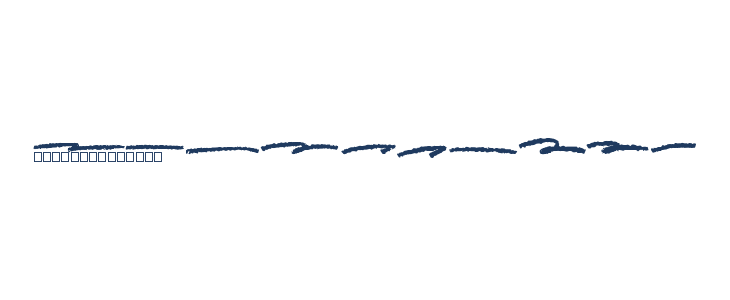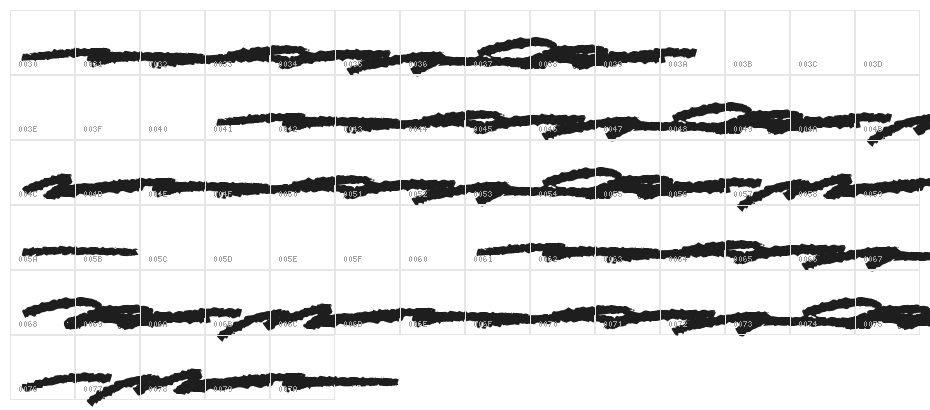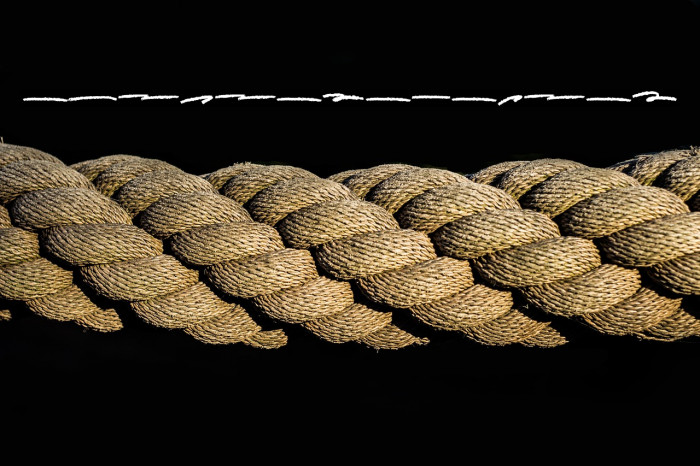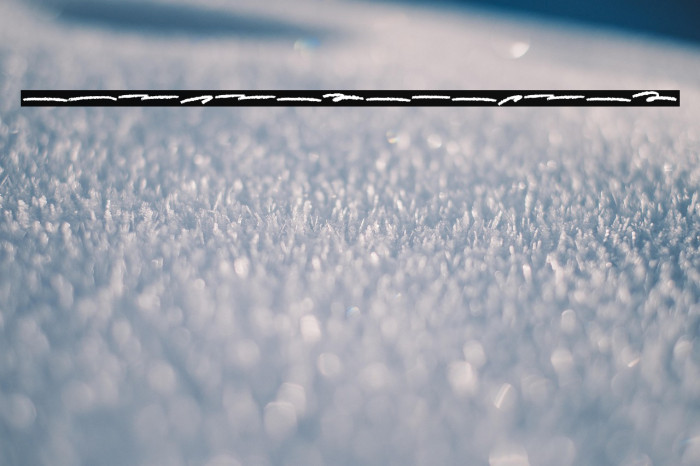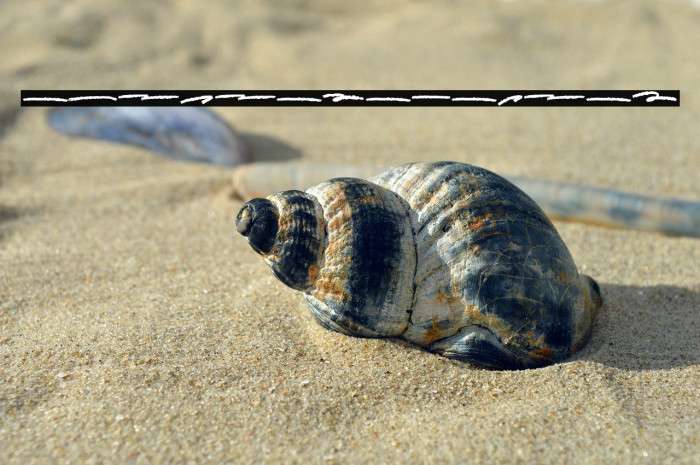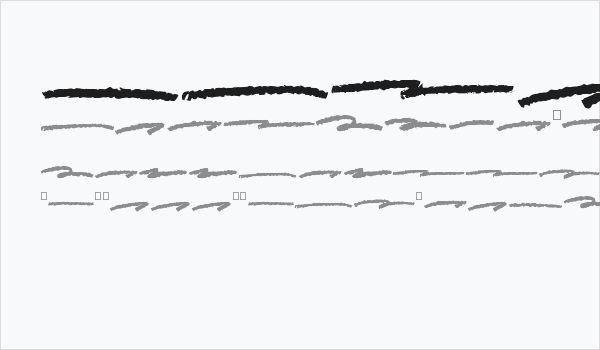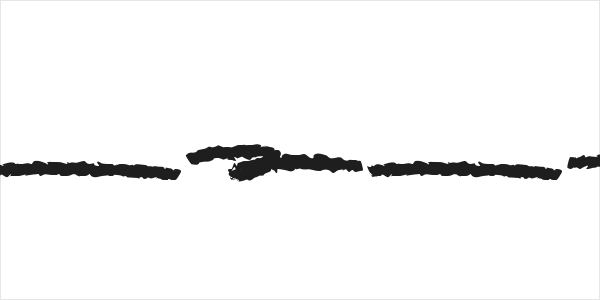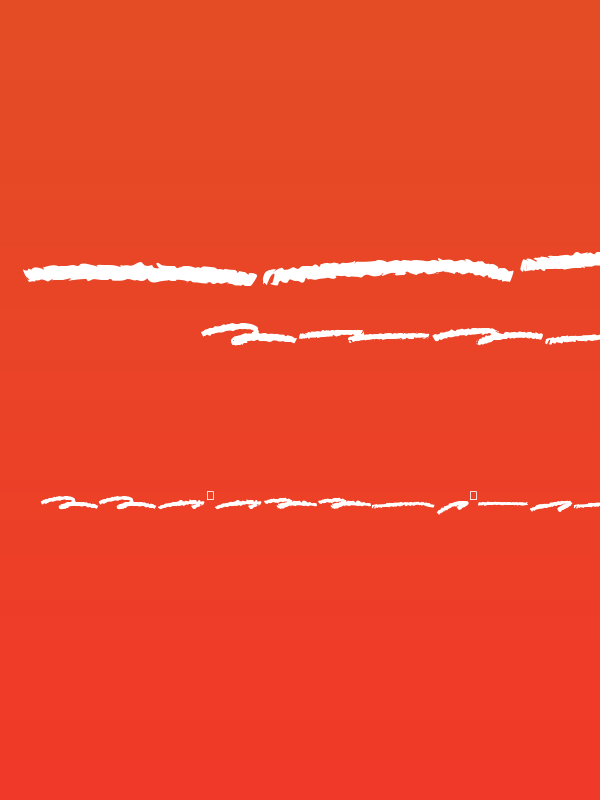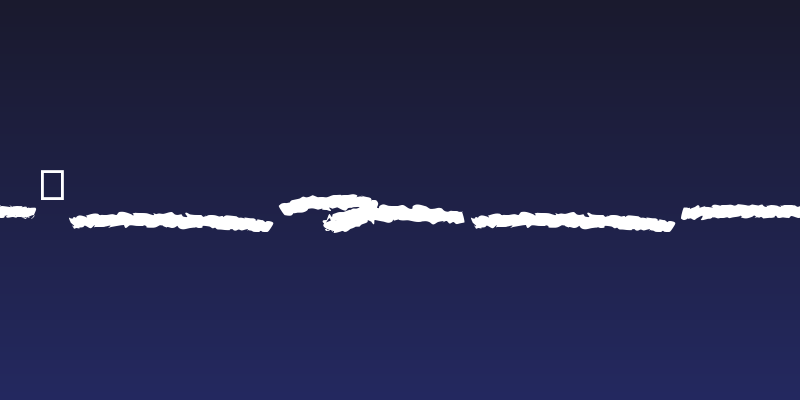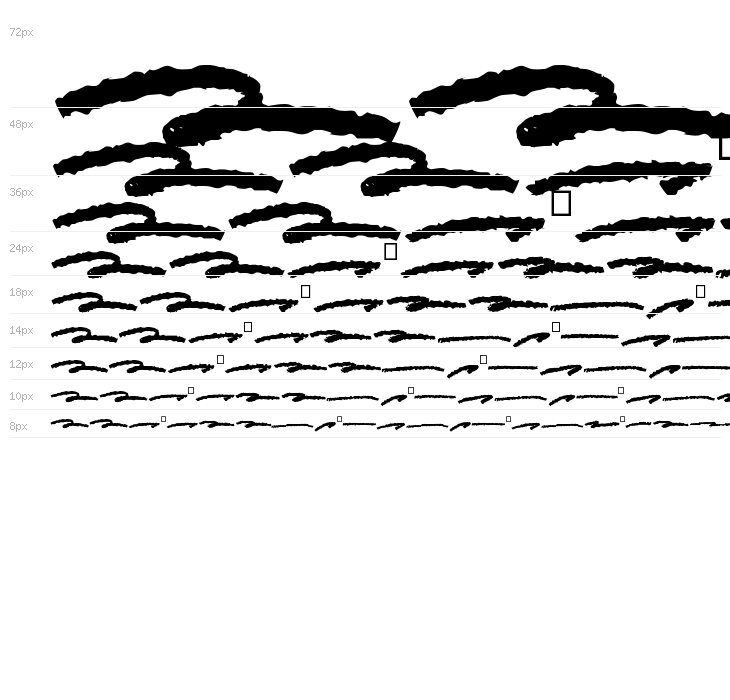
Scary SignS wash Font
Scary SignS wash Description
This font features a highly decorative and spooky style, reminiscent of eerie handwriting or scratchy penmanship. Each character appears to be drawn with a rough, uneven stroke, giving it a ghostly and unsettling appearance. The letters are slightly slanted, adding to the sense of movement and unpredictability. The overall texture is reminiscent of something you might find in a haunted house or on a mysterious old map. This font is perfect for creating a chilling atmosphere, with its unique and artistic flair that captures the essence of horror and suspense.